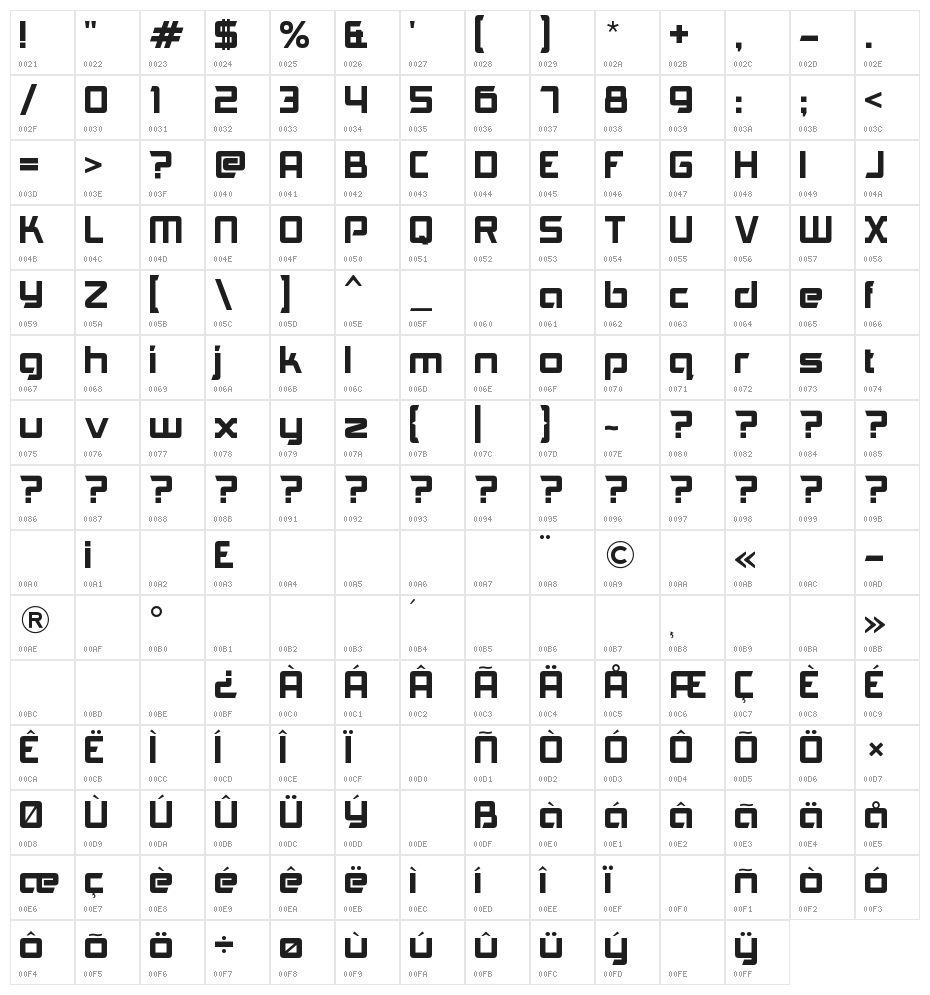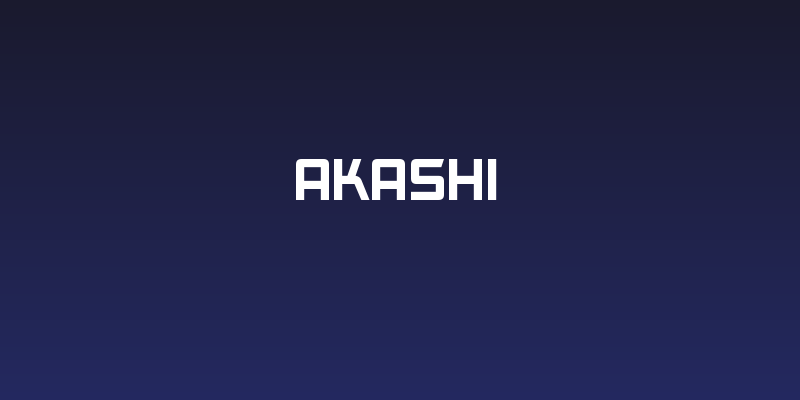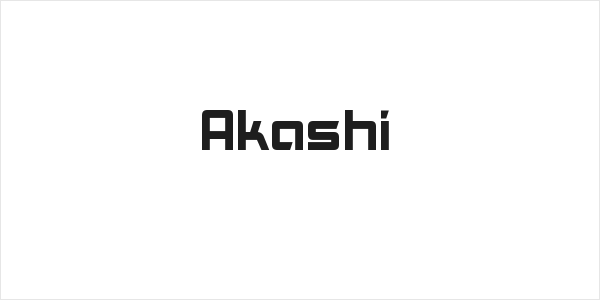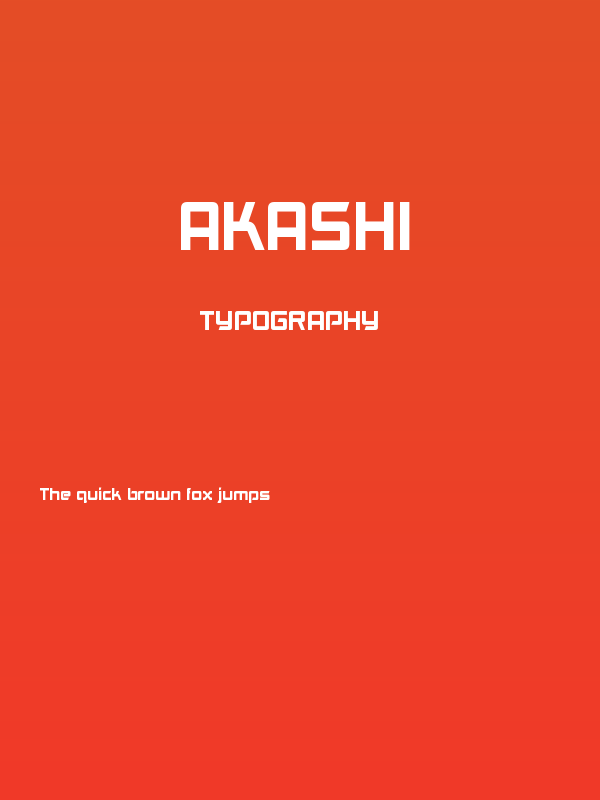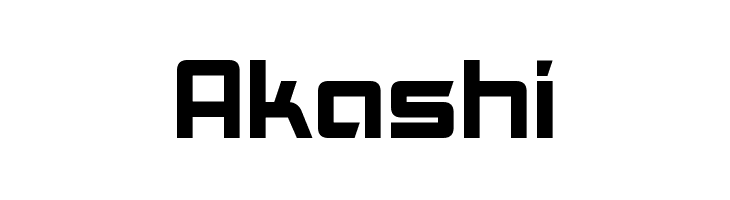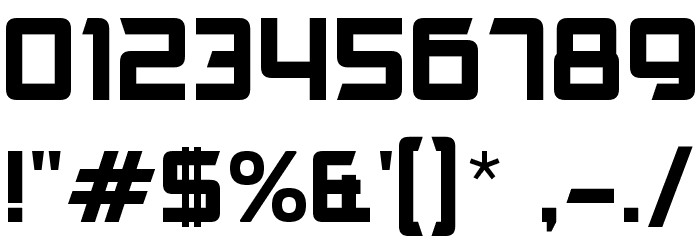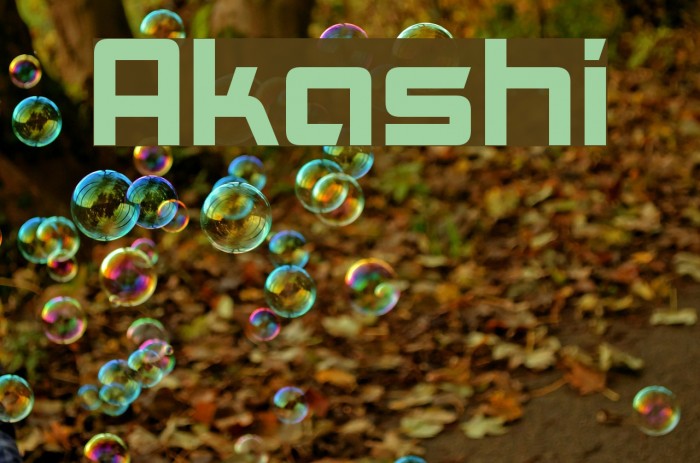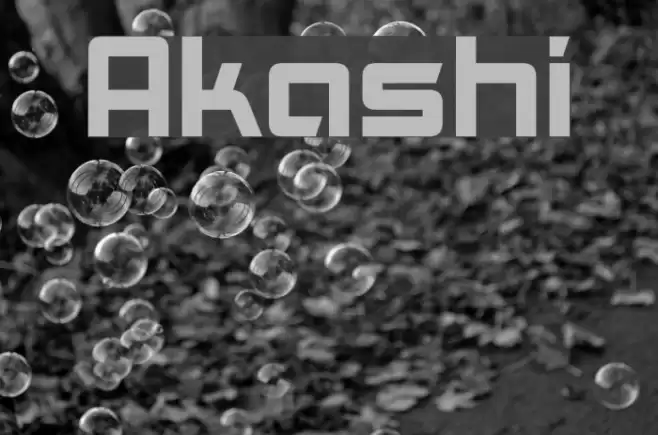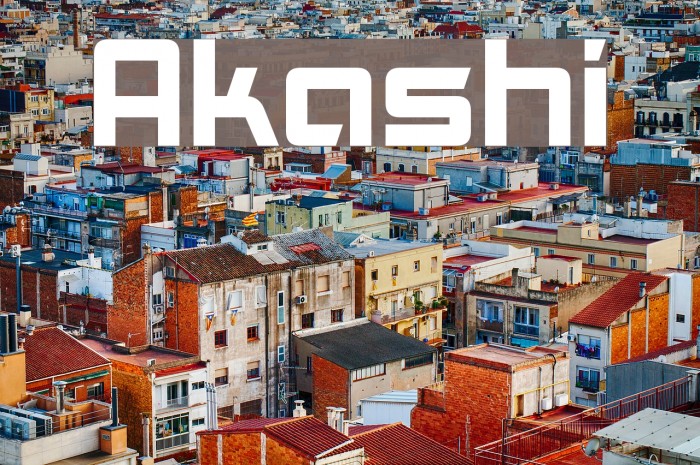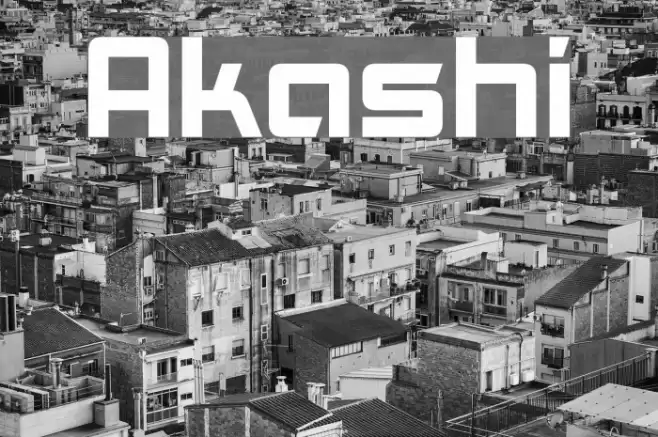
Akashi Font
Akashi Description
This font features a bold, geometric design with a modern and futuristic appeal. The characters are constructed with clean, straight lines and sharp angles, giving it a strong and assertive presence. The uppercase letters are uniform in height, while the lowercase letters maintain a consistent baseline, enhancing readability. The numerals are equally bold, matching the overall style of the alphabet. Special characters are included, maintaining the same geometric structure, ensuring a cohesive look across all glyphs. This font is well-suited for projects that require a contemporary and impactful visual style.
| Use Case | Headlines, Logos, Digital interfaces |
| Proposed Projects | Ideal for technology branding, modern advertising, digital interfaces, and futuristic-themed projects. |